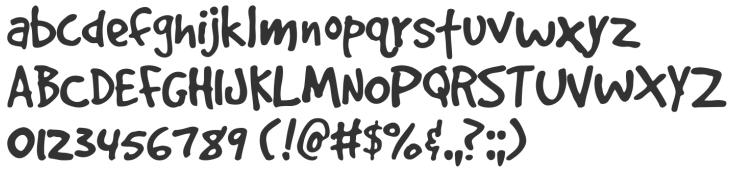
Font Frenzy: Good Dog
Got a nice hand drawn font for you today – GoodDog is a bit irregular, a bit irreverent, and would look great on designs intended for children (or for children to send to someone else – Mother’s Day, for example). And it’s FREE for commercial use! See an example below. Have fun!